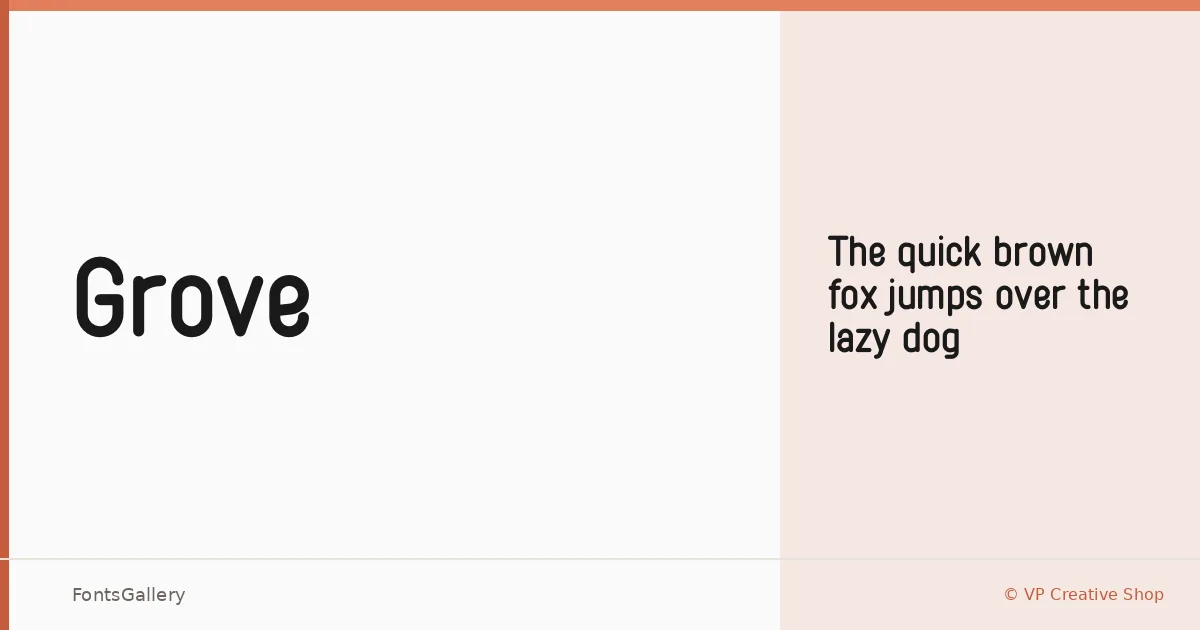
About Grove Font
There is a controlled confidence in this sans serif — the kind that comes from stripped-back forms with nothing left to prove. Released by VP Creative Shop, it arrives as a single Regular weight in OTF format, designed to hold attention without relying on ornamentation.
The design sits in minimal, modern territory: clean geometry, professional composure, and enough boldness in its presence to read with authority at display sizes. As a single-cut family — Regular only — it earns its place through the quality of its shapes rather than the breadth of its range. The letterforms feel deliberate and tightly considered, the sort of face that looks decisive on a page rather than merely neutral.
Its natural habitat is wherever a headline or logo needs to land cleanly — brand identities, poster compositions, website headers, and any context where the type itself carries the visual weight. Latin coverage is partial, so verify character support against your copy before committing. It pairs well with contrasting companions: the editorial serif warmth of Canela or ABC Arizona, the expressive softness of Armelie, the raw energy of 321 Impact, or the structural clarity of Kactigona.